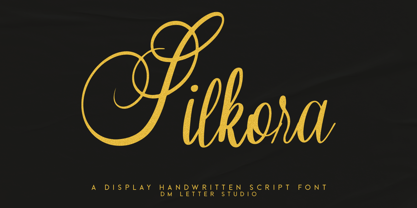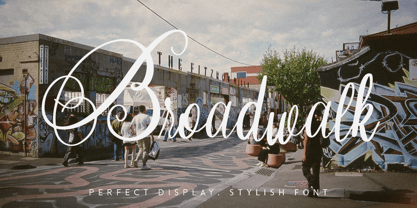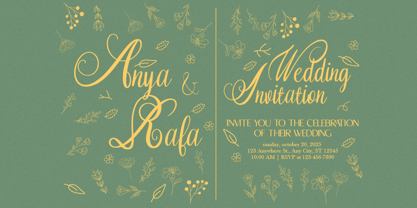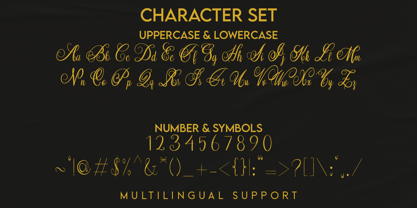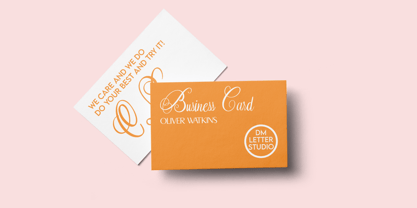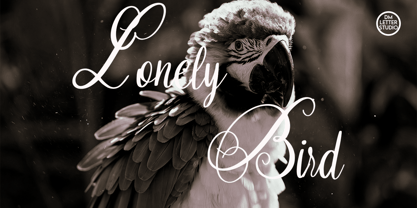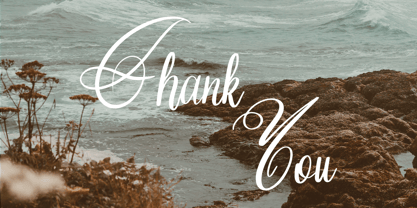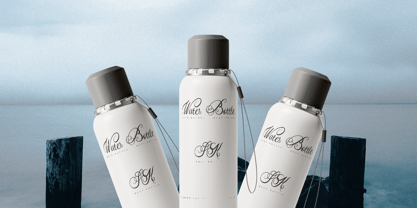
Silkora
by DM Studio
The Silkora Font Family was designed by Dimas Prasetyo and published by DM Studio. Silkora contains 1 styles. More about this family
Meet Silkora, the Beautiful Handwriting Script Font Silkora is a beautiful handwriting script font with smooth cursive strokes and a soft, flowing rhythm. It feels elegant, romantic, and naturally written, like a graceful signature on fine paper. The curves are balanced and refined, so the text stays readable at small sizes while looking luxurious in larger layouts. Use it for logos, wedding stationery, quotes, branding, invitations, packaging accents, and social media designs. As a result, your work feels polished, personal, and timeless. Why Silkora Script Font sells First, it installs easily and works smoothly in Canva, Photoshop, Illustrator, and most design apps. Next, the clean cursive strokes export beautifully for both print and digital use. Then layouts come together faster because the letterforms connect naturally and space well. Moreover, Silkora pairs perfectly with minimalist sans fonts and classic serifs, helping you create balanced, high-end designs without effort. Therefore, it’s an excellent choice for creators working on elegant and emotional projects. Fast layouts with the Silkora Font Start with names, short phrases, or meaningful quotes and let the script flow naturally. After that, add details like dates or taglines using a clean supporting font. Because Silkora has a light, graceful feel, it works especially well in airy layouts with generous white space. In addition, it shines on invitations, logo signatures, quote graphics, and packaging details. Finally, try palette pairs like champagne & ivory, blush & taupe, sage & cream, or charcoal & white to enhance the refined mood. Creative uses and quick wins Wedding invitations, save-the-dates, and vow cards Logo signatures and elegant brand marks Quotes, captions, and social media overlays Packaging accents, labels, and thank-you notes What you get Uppercase and lowercase letters Numbers and basic punctuation Design tips for Silkora Handwriting Script Font Keep text concise so the cursive flow stays clean and legible. Also, slightly increase line spacing for multi-line quotes to improve readability. For print, use smooth or lightly textured paper stocks to enhance the handwritten feel. Finally, export at 300 DPI for print and at 2× size for web so strokes stay silky and sharp.
Designers: Dimas Prasetyo
Current Foundry: DM Studio